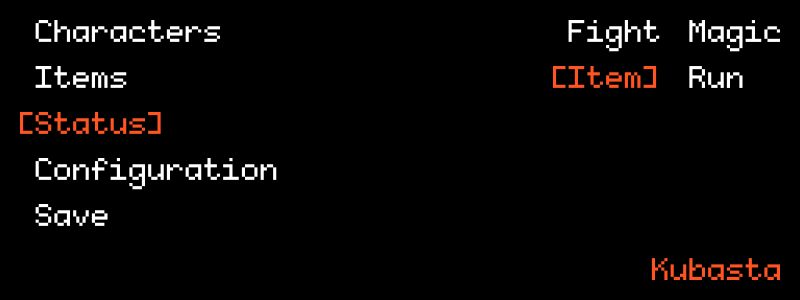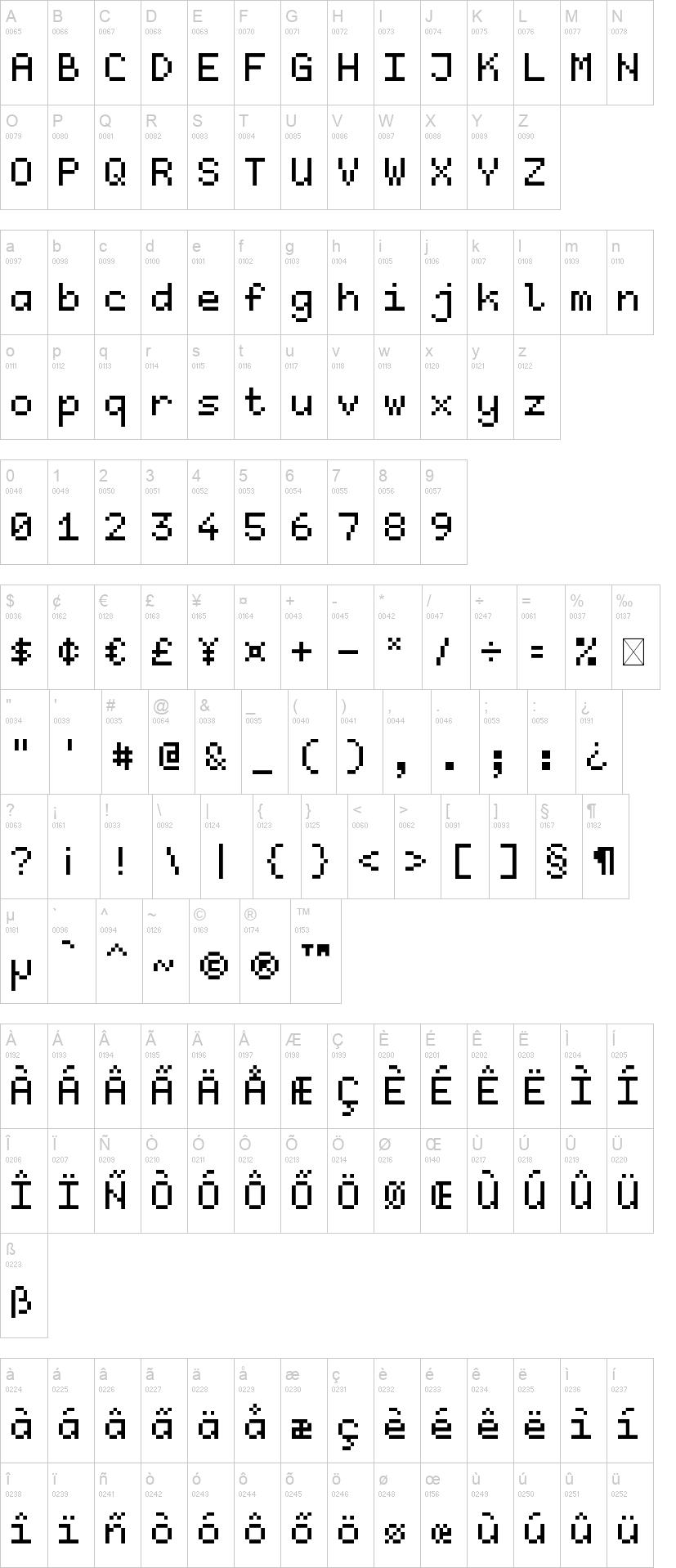
Note of the authorKubasta is a monospaced pixel font. It was designed with readability in mind. The glyphs are easily distinguishable from one another and legible even in small sizes. Its perfectly applicable for retro style interfaces and games.
An earlier version was created with BitFontMaker2 in 2014 and used in Beat Cop by Pixel Crow.